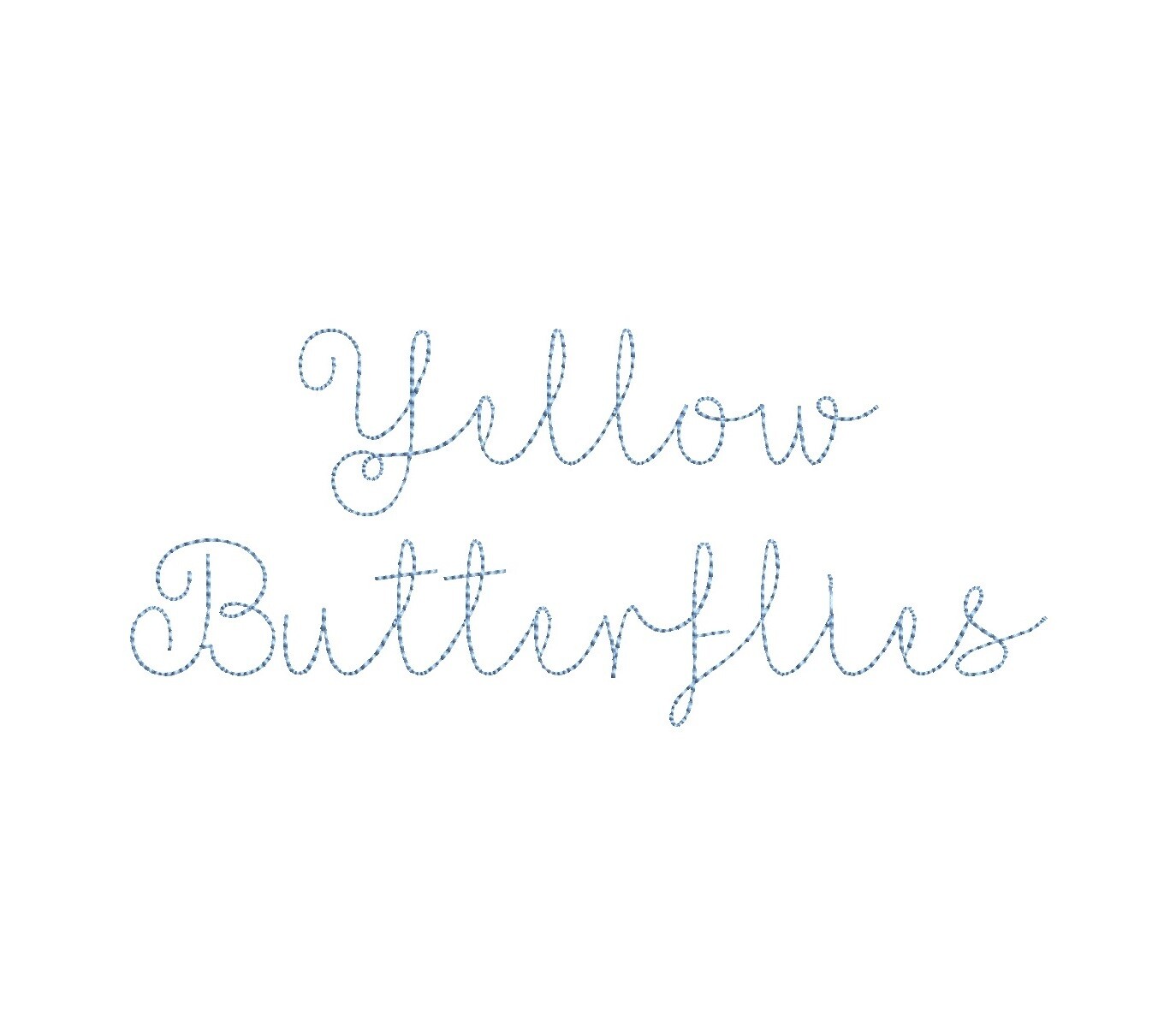
Unleash the beauty of Yellow Butterflies Bean Stitch ESA font, an exquisite embroidery design for your creative projects. Seamlessly compatible with Wilcom Studio e4.5.6 and Hatch 3 versions and beyond, this font ensures impeccable stitch precision and intricate detailing. Let your creations take flight with the enchanting bean stitch pattern, adding elegance to any textile masterpiece, from fashion to intricate designs. Unlock boundless creative possibilities with this font's versatility. Optimized for SEO, it guarantees both visual brilliance and search engine prominence. Don't miss this exceptional embroidery asset to add a touch of nature's wonder to your craft. Explore Yellow Butterflies ESA font today!